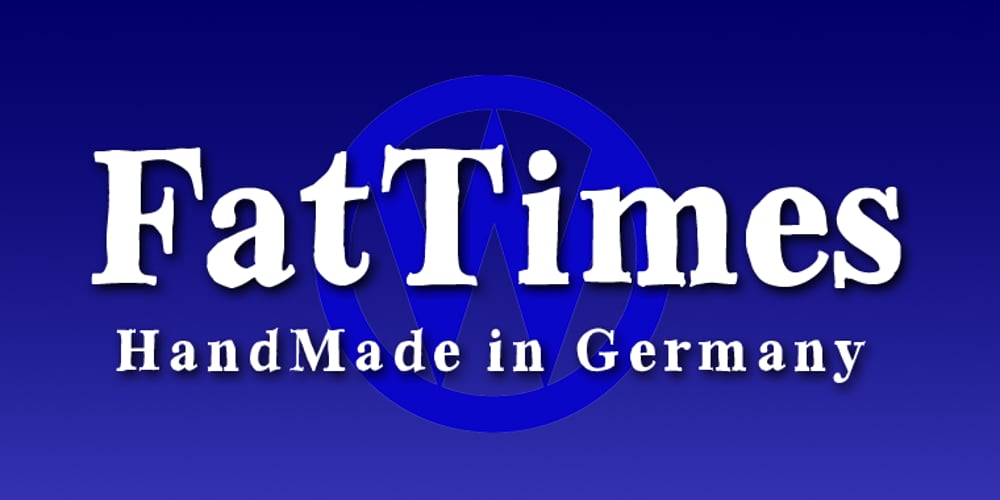
Fat Times Font Family was designed by Gert Wiescher and published by Wiescher Design. Fat Times contains 1 styles and family package options. FatTimes is an extension to my HardTimes family. Times are too hard for boring typefaces, so try the fat one one for a change. Your hardworking typedesigner – Gert Wiescher